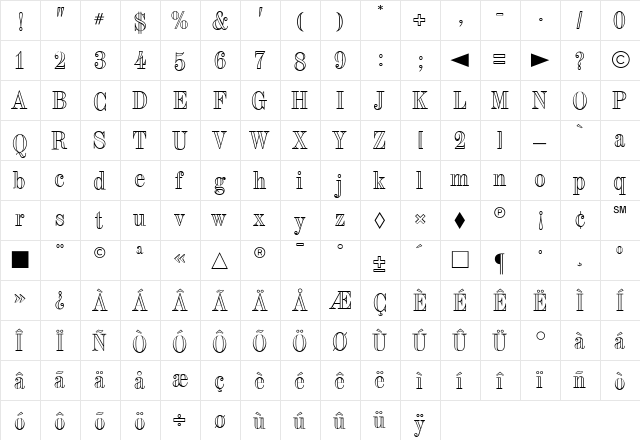
CgTorinoOpen Medium Font Preview
CgTorinoOpen Medium
CgTorinoOpen Medium Font Details
Design Context for CgTorinoOpen Typeface
CgTorinoOpen offers clean, dependable letterforms without strong stylistic allegiance, making it a practical choice for designers who need flexibility.